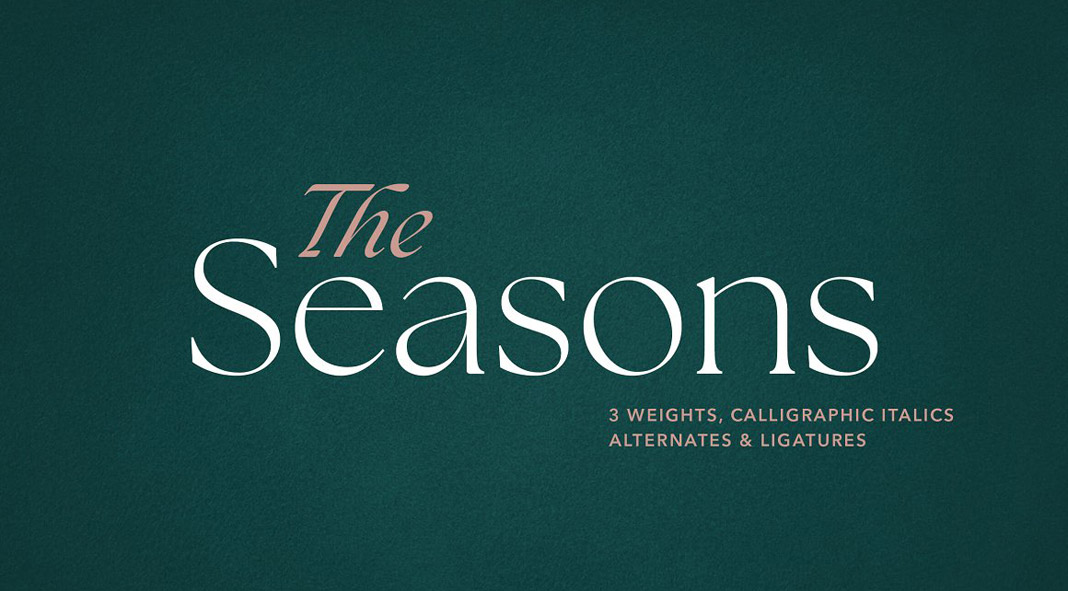
The Seasons, a sensual serif font family designed by Elena of MyCreativeLand.
The Seasons is a beautifully designed serif font family consisting of a vintage-inspired high-contrast serif typeface. The family comes with corresponding calligraphic cursive italics that have been written with a Pilot Parallel Pen. Both upright and italic fonts share the same style which is based on soft terminals with a sharp cut. The Seasons font family also includes OpenType features such as ligatures and stylistic alternates. Just click on the following link to learn more.